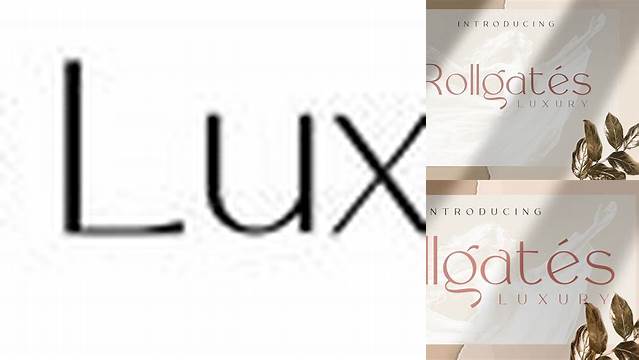
Rollgates Font: Luxury, Regular & Free Download
Hey guys! Ever stumbled upon a font that just screams elegance and luxury? Well, let me introduce you to Rollgates – a font that’s making waves in the design world. This isn't just another typeface; it's a statement. Whether you're working on branding for a high-end product, designing a swanky wedding invitation, or crafting a visually stunning website, Rollgates might just be the secret ingredient you've been searching for. And the best part? You can get your hands on the regular version for free! So, let’s dive deep into what makes Rollgates so special and how you can use it to elevate your projects.
What Makes Rollgates Font Luxurious?
The Rollgates font exudes a sense of luxury through its carefully crafted design. The clean lines, the subtle curves, and the overall aesthetic give it a premium feel. It’s the kind of font that whispers sophistication rather than shouting it. The attention to detail in each character is what sets it apart from more generic fonts. Think about it: luxury is often about the small details, the things that aren't immediately obvious but contribute to the overall impression. Rollgates embodies this philosophy perfectly. The spacing, the kerning, and the weight distribution are all meticulously balanced to create a harmonious visual experience. This makes it incredibly versatile, fitting seamlessly into high-end branding materials, editorial designs, and even digital interfaces. The beauty of Rollgates lies in its understated elegance, making it a top choice for designers aiming to convey sophistication and class. Whether you're designing a logo, a magazine layout, or a website, Rollgates can effortlessly elevate the overall aesthetic. Seriously, guys, this font is like the little black dress of typography – always chic, always appropriate.
Exploring the Regular Style of Rollgates
The regular style of Rollgates is the workhorse of the family, offering a perfect balance between readability and style. It’s versatile enough to be used in body text, headlines, and everything in between. This is crucial because a font’s regular style is often the most used, especially in longer texts. If the regular style isn't spot-on, the entire font family might fall short. Rollgates nails this balance, making it a reliable choice for designers. The regular style maintains the font's luxurious feel while ensuring optimal readability, which is a delicate balance to strike. Imagine using it in a magazine article, a website's body text, or even in a professional document – it adds a touch of class without being overwhelming. The clean lines and consistent weight make it easy on the eyes, even for extended reading. Plus, it pairs beautifully with other fonts, giving you a lot of flexibility in your designs. For instance, you might use Rollgates Regular for your body text and a bolder, more decorative font for your headlines. Trust me, guys, you'll appreciate the versatility of the regular style when you start experimenting with different designs.
Rollgates Font in Logo Design
When it comes to logo design, typography is key. The right font can make or break a logo, and Rollgates font, with its luxurious and elegant feel, is an excellent choice for brands aiming to convey sophistication and class. A logo is often the first impression a company makes, so it needs to be impactful and memorable. Rollgates can help you achieve this by adding a touch of refinement to your logo. Its clean lines and balanced letterforms make it highly legible, even at smaller sizes, which is crucial for logos that need to work across various mediums, from business cards to websites. Imagine a high-end fashion brand or a luxury hotel using a logo set in Rollgates – it immediately communicates quality and elegance. The font’s versatility also means it can be adapted to suit different brand personalities. You can pair it with a minimalist design for a modern look or use it in a more elaborate composition for a classic feel. Plus, the free regular version allows you to experiment with different logo concepts without any initial investment. Guys, if you’re working on a logo that needs to exude luxury, Rollgates should definitely be on your shortlist.
Using Rollgates for Branding Materials
Branding is all about consistency, and choosing the right font is a critical part of creating a cohesive brand identity. Rollgates font can be a fantastic asset in your branding toolkit, lending a touch of luxury and elegance to all your materials. From business cards and letterheads to brochures and website designs, using Rollgates consistently helps reinforce your brand’s image. Think about it – every time a customer interacts with your brand, they’re forming an impression. Using a sophisticated font like Rollgates communicates attention to detail and a commitment to quality. The font's versatility means it can be used across various applications, ensuring a seamless look and feel. For example, you might use Rollgates in your logo, headlines, and even body text (especially the regular style) to create a unified visual identity. When paired with the right color palette and imagery, Rollgates can elevate your brand’s perception, making it appear more professional and polished. Guys, remember that branding is more than just a logo; it’s the entire experience, and Rollgates can help you create a memorable one.
Rollgates Font for Website Design
In the digital age, your website is often the first point of contact for potential customers. The design of your website, including the typography, plays a crucial role in creating a positive user experience. Rollgates font can be an excellent choice for website design, adding a touch of elegance and sophistication to your online presence. A well-chosen font can improve readability, enhance the visual appeal, and reinforce your brand’s identity. Rollgates, with its clean lines and balanced letterforms, is highly legible on screens, making it a practical choice for both headlines and body text. Imagine a website for a luxury spa or a high-end restaurant using Rollgates – it immediately conveys a sense of quality and refinement. The font's versatility also allows you to create different moods and styles, depending on your brand’s personality. You can use Rollgates for a minimalist, modern website or pair it with more decorative elements for a classic look. Guys, remember that your website is your digital storefront, and using a font like Rollgates can help you make a great first impression.
Rollgates in Print Design Projects
While digital design is increasingly important, print design still holds a significant place in many industries. Rollgates font shines in print projects, adding a touch of elegance to everything from brochures and posters to business cards and invitations. The crisp lines and sophisticated letterforms of Rollgates make it ideal for creating visually appealing and highly readable print materials. Think about a beautifully designed wedding invitation or a high-end magazine layout – Rollgates can elevate the overall aesthetic, making it feel more luxurious and refined. The font's balanced design ensures it looks great even when printed at smaller sizes, which is crucial for items like business cards. Moreover, Rollgates pairs well with various print techniques, such as letterpress or embossing, adding an extra layer of sophistication. Whether you’re designing a marketing brochure or a personal invitation, Rollgates can help you create a lasting impression. Guys, never underestimate the power of well-chosen typography in print design – it’s the secret ingredient that can make your projects stand out.
Pairing Rollgates with Other Fonts
Even the most beautiful font can benefit from being paired with another typeface. The art of font pairing is about creating a harmonious contrast, where different fonts complement each other without clashing. Rollgates font, with its elegant and sophisticated style, pairs well with a variety of fonts, depending on the overall look and feel you want to achieve. For a classic and timeless combination, consider pairing Rollgates with a serif font like Garamond or Times New Roman. This creates a balance between the modern elegance of Rollgates and the traditional feel of the serif font. If you’re aiming for a more contemporary look, try pairing Rollgates with a clean sans-serif font like Helvetica or Open Sans. This combination offers a sleek and minimalist aesthetic that’s perfect for modern branding and website designs. When choosing fonts to pair with Rollgates, consider the weight, style, and overall personality of each typeface. The goal is to create a visual hierarchy where the fonts work together to enhance the readability and visual appeal of your design. Guys, experimenting with font pairings is one of the most fun parts of design – don’t be afraid to try different combinations until you find the perfect match.
Rollgates Font for Wedding Invitations
Wedding invitations are a special kind of design project. They need to be elegant, timeless, and reflective of the couple’s personality. Rollgates font is an excellent choice for wedding invitations, adding a touch of luxury and sophistication to this important keepsake. The font’s elegant letterforms and clean lines make it perfect for conveying a sense of romance and celebration. Imagine a beautifully printed invitation with the names of the couple and key details set in Rollgates – it instantly elevates the design, making it feel more special and refined. Rollgates also pairs well with various design styles, from classic and traditional to modern and minimalist. You can use it for the main text, headings, or even decorative elements like monograms. When combined with luxurious paper stock, delicate embellishments, and thoughtful design details, Rollgates can help you create wedding invitations that are truly unforgettable. Guys, your wedding invitation is the first glimpse your guests will have of your special day, so make it count with a font like Rollgates.
Rollgates Font in Resume Design
A resume is your first impression on a potential employer, so it needs to be professional, easy to read, and visually appealing. Rollgates font can be a great choice for resume design, adding a touch of elegance and sophistication to your application. Its clean lines and refined letterforms make your resume look polished and professional. When designing a resume, typography plays a key role in conveying your qualifications and experience clearly and concisely. Rollgates can be used for headings, body text, and other key elements, creating a cohesive and readable document. It’s also important to consider the overall layout of your resume, including the spacing, margins, and visual hierarchy. Guys, a well-designed resume can help you stand out from the competition, and Rollgates can help you make a strong impression.